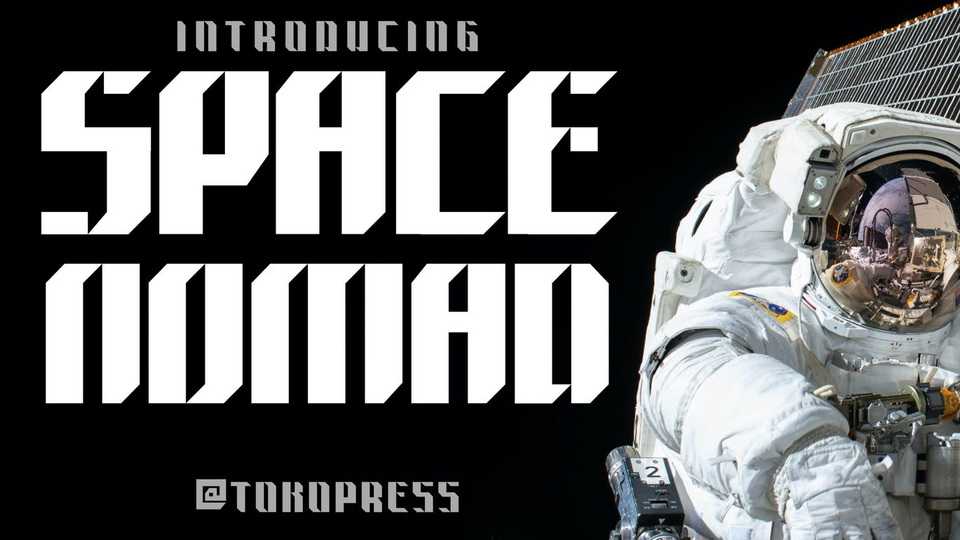
Download Space Nomad font, a futuristic typeface. Space Nomad font suits perfectly for future and science segmented magazines, posters, movie titles, music posters and so on…